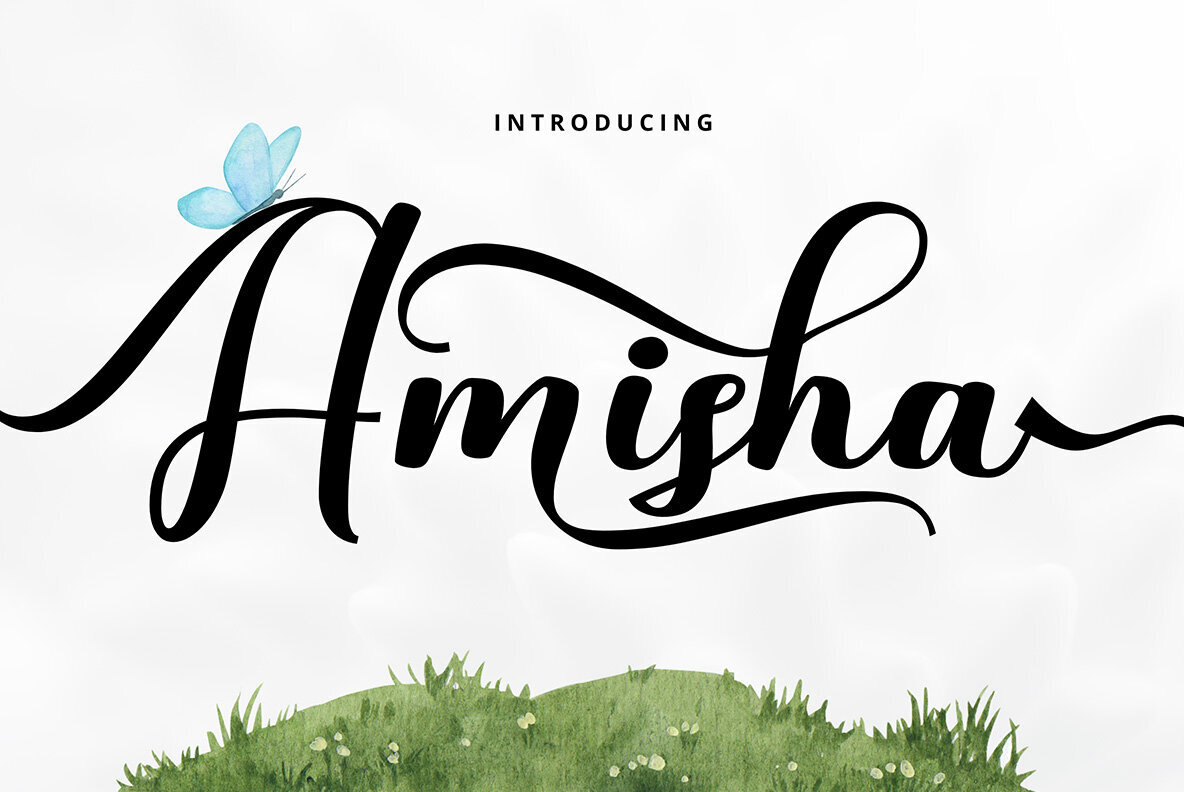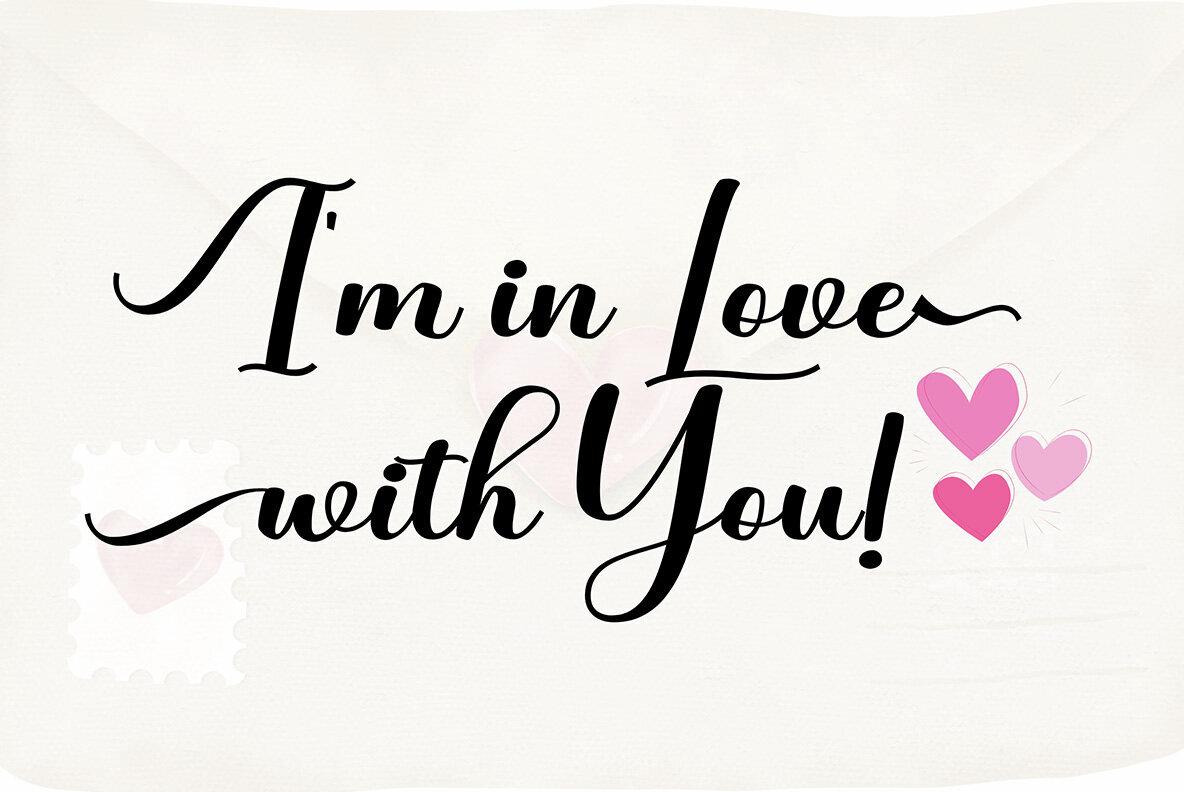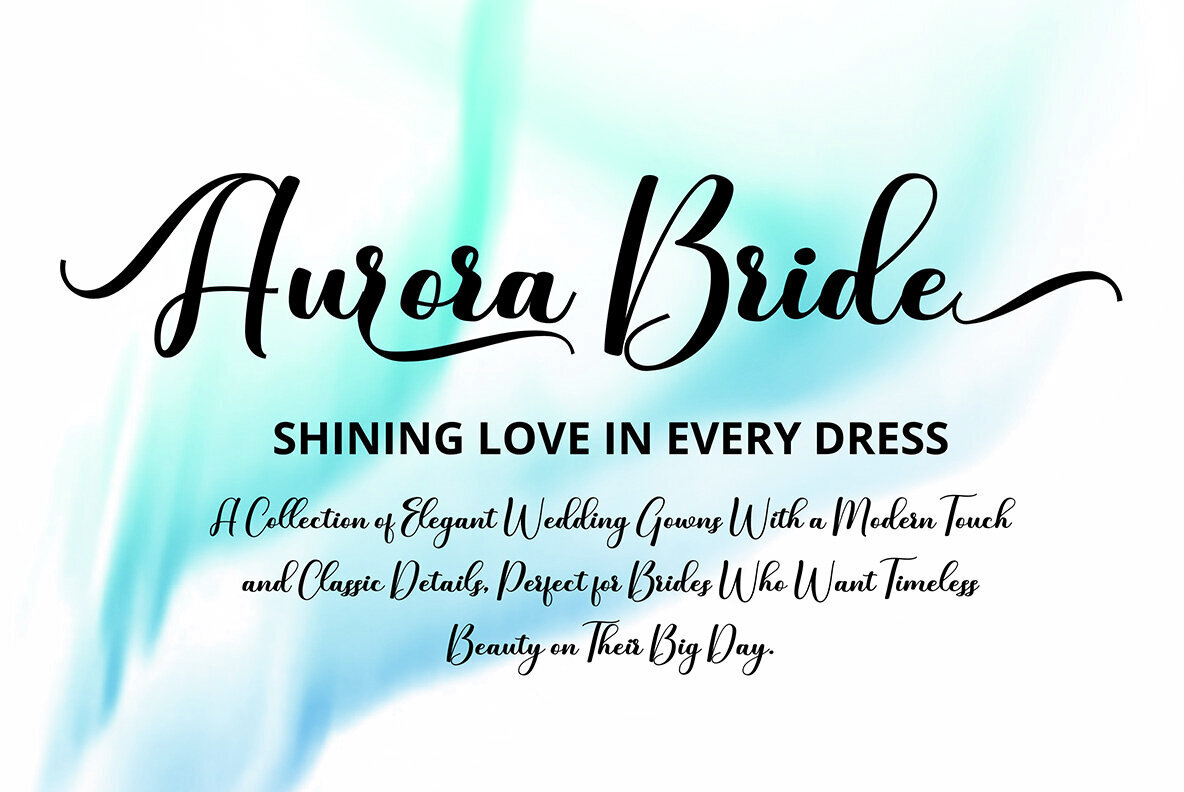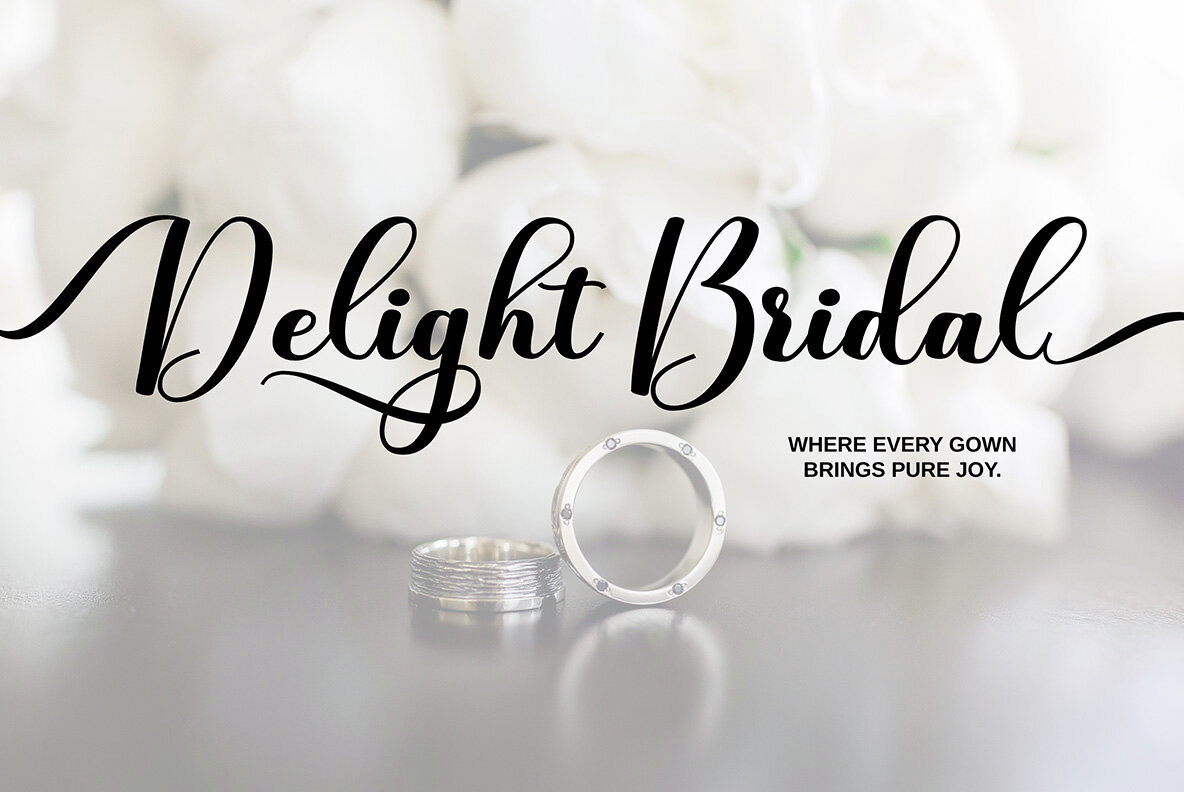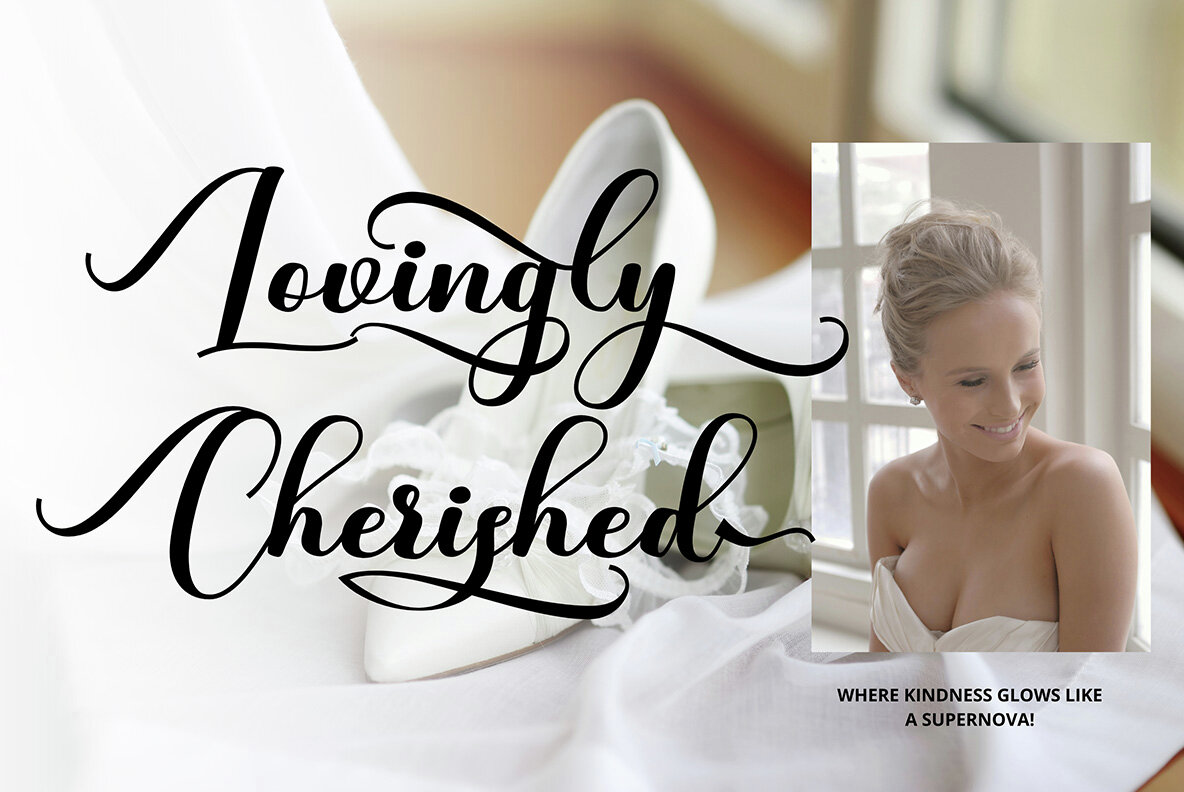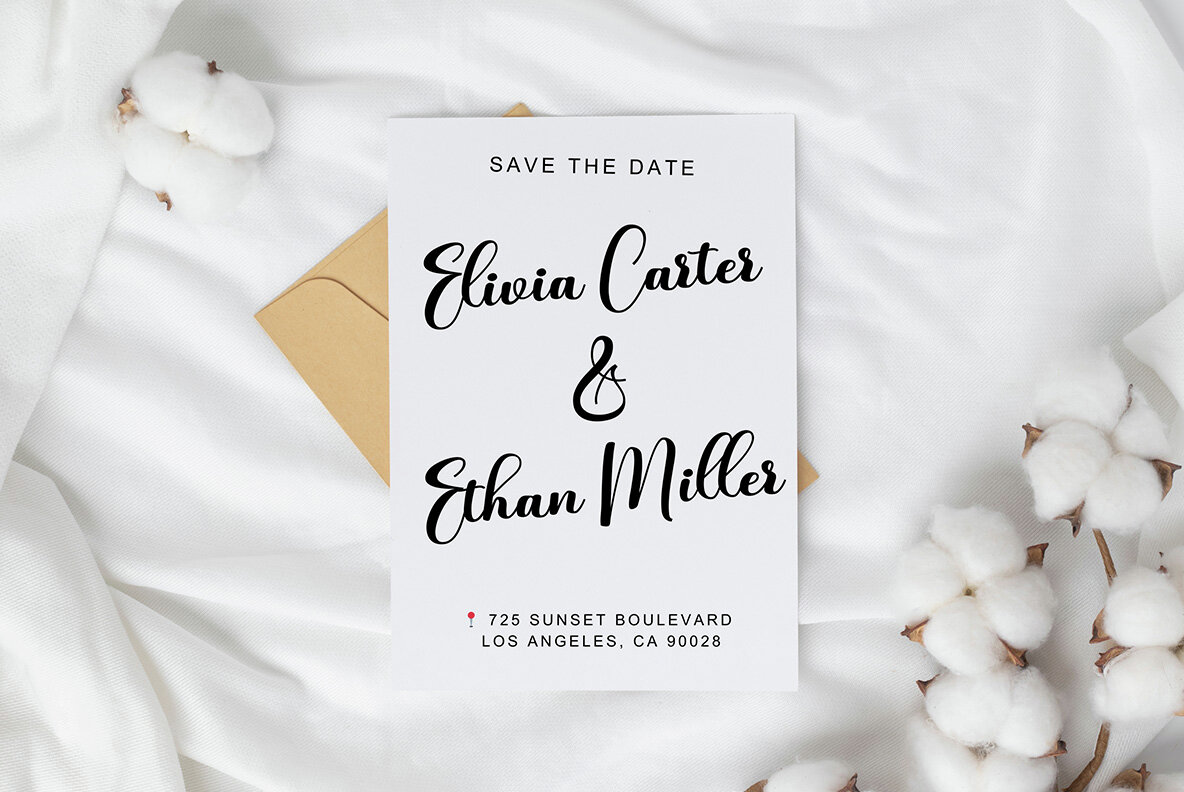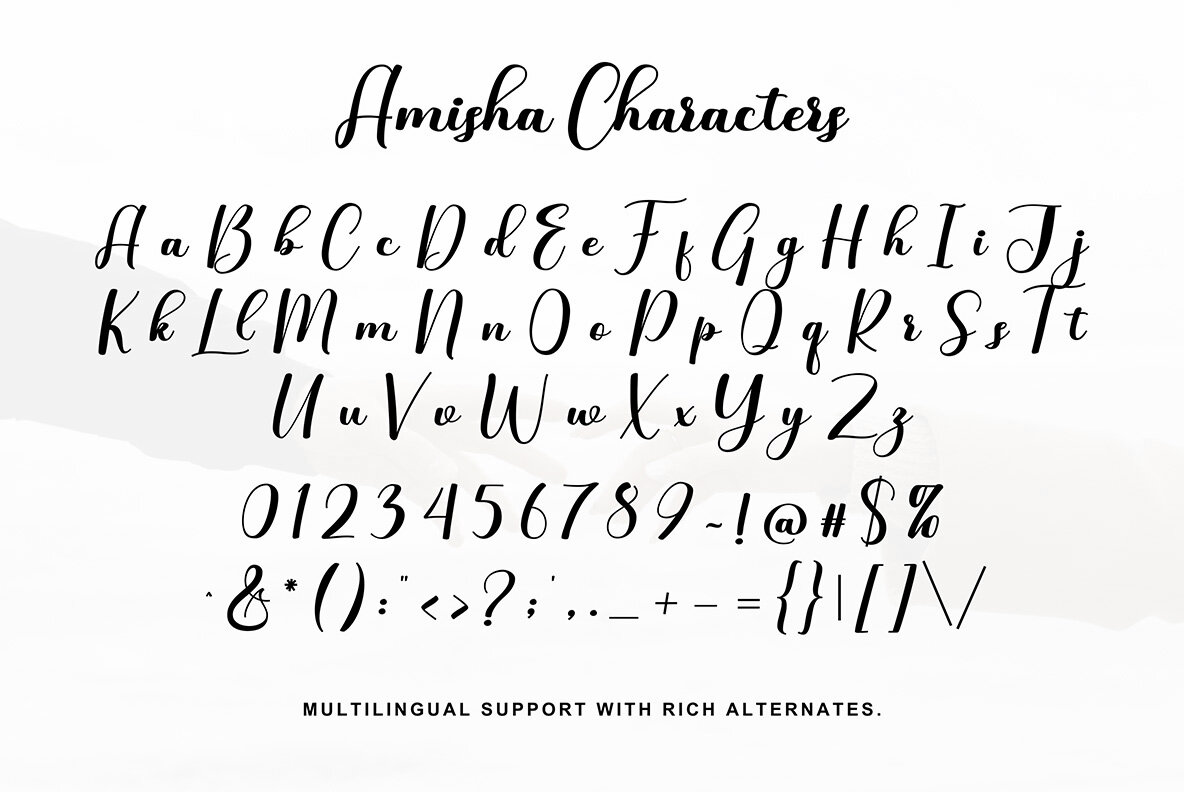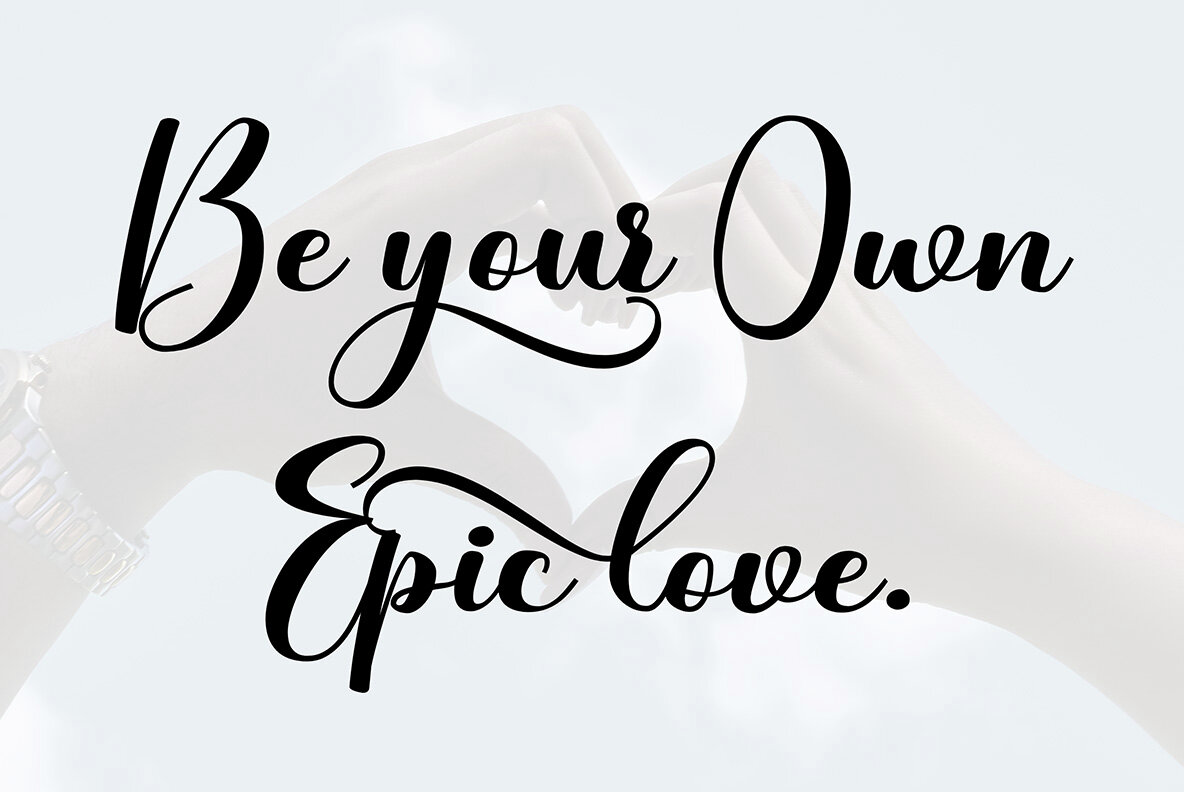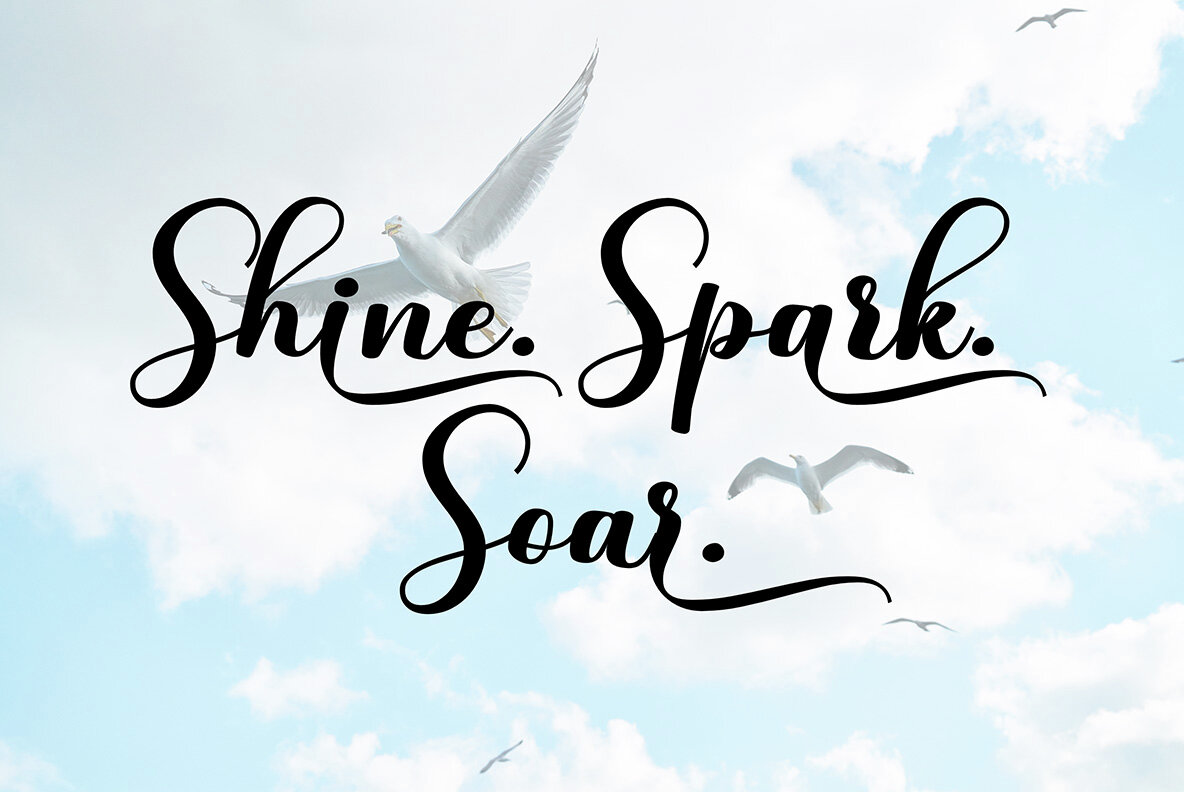
Amisha Font
Amisha
Discover Amisha, the charming script font that elegantly flows with soft curves and graceful movements. It perfectly adds beauty and personality to any design. Each letter carries a gentle rhythm, making it an ideal choice for branding, wedding stationery, packaging, and social media projects. Amisha's handwritten yet refined style brings warmth and timeless elegance to every creation. From heartfelt messages to bold logos, it infuses a feminine touch that feels both personal and authentic. Enhance your designs with Amisha's delicate charm.Amisha: Elegant Script Font